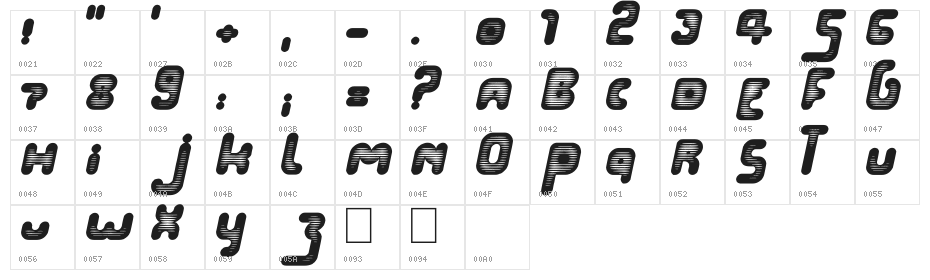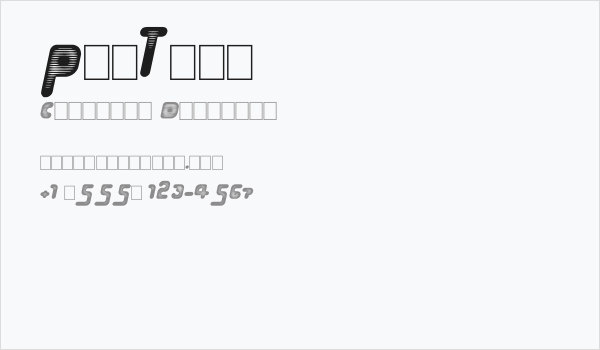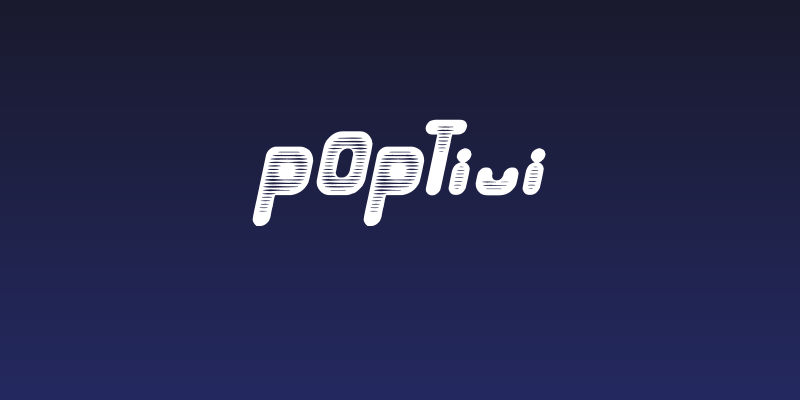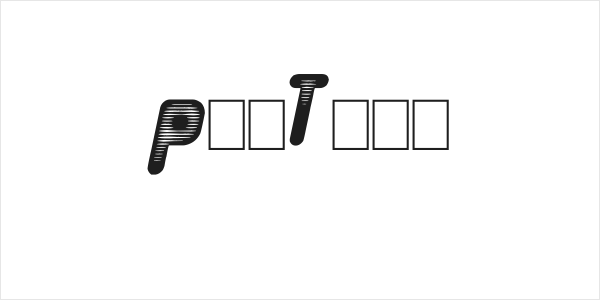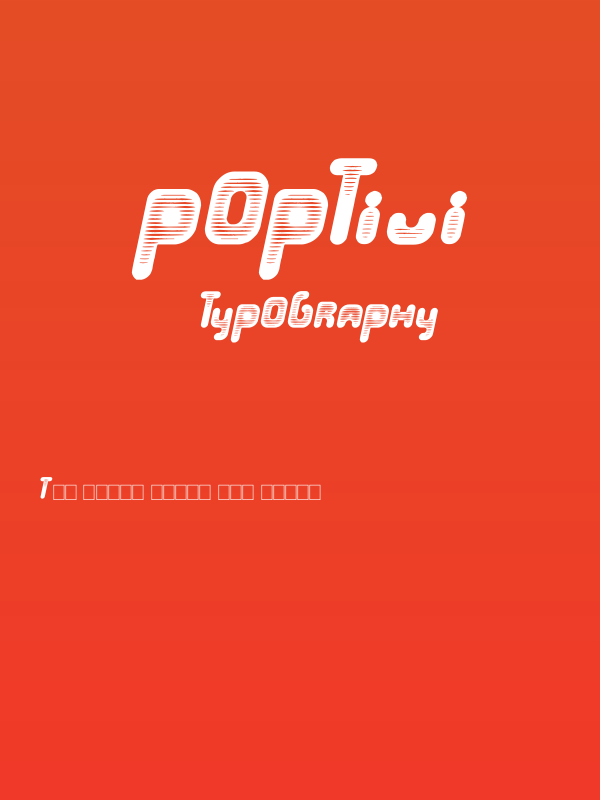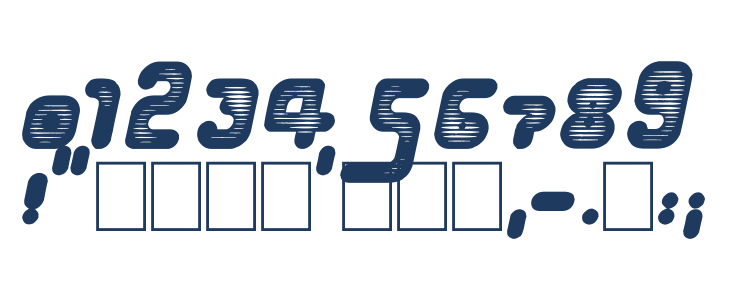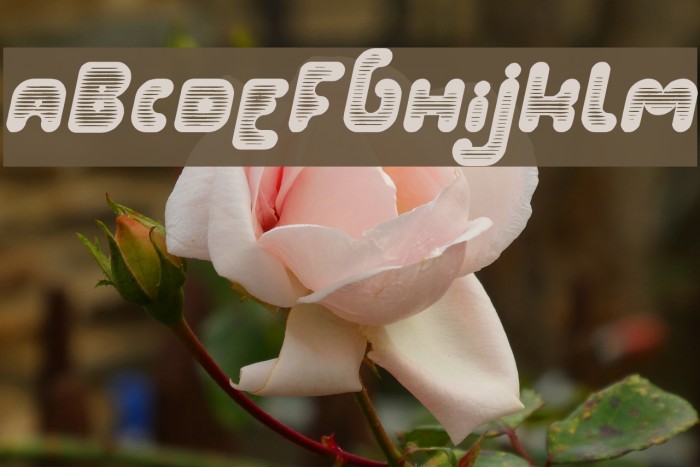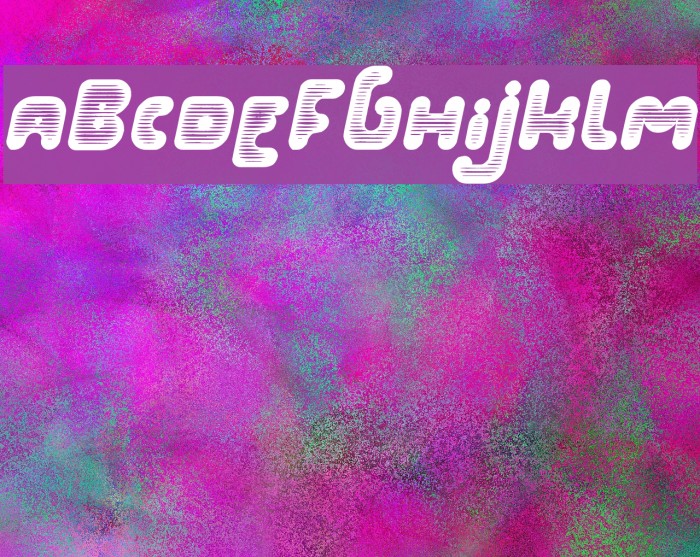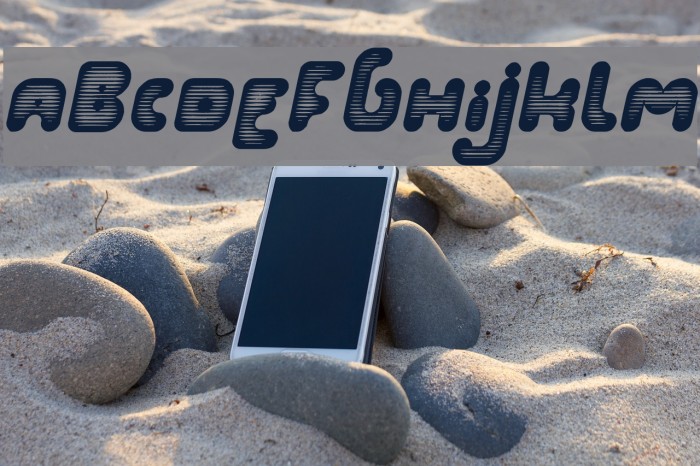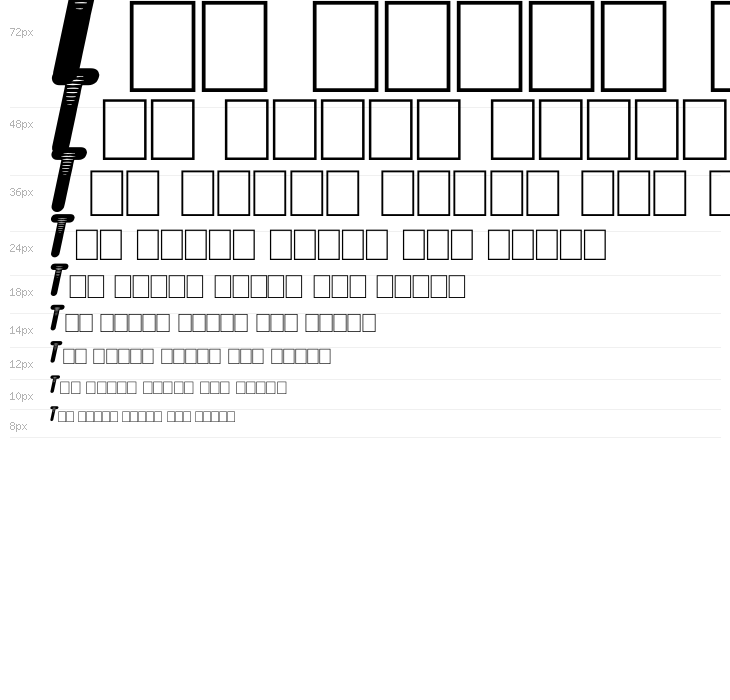
PopTivi Font
PopTivi Description
This font features a unique, playful design with a bold, rounded appearance. Each character is filled with horizontal lines that create a dynamic, textured look. The letters have a consistent thickness, giving them a solid and substantial feel. The style is reminiscent of retro or vintage aesthetics, making it ideal for projects that require a touch of nostalgia. The font's playful nature is emphasized by its rounded edges and the uniformity of the line patterns within each character. This design is both eye-catching and versatile, suitable for a variety of creative applications.
| Proposed Projects | Ideal for retro-themed posters, playful branding, children's book covers, and creative advertising. |